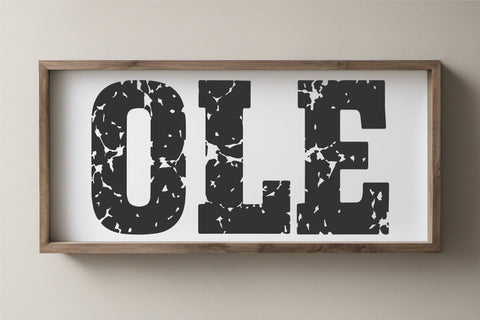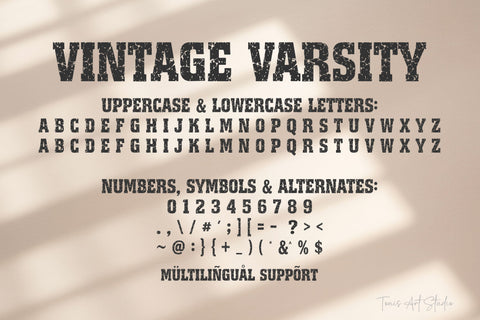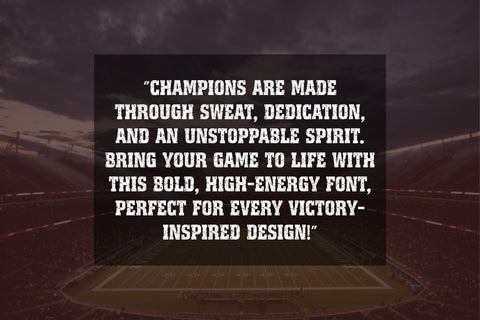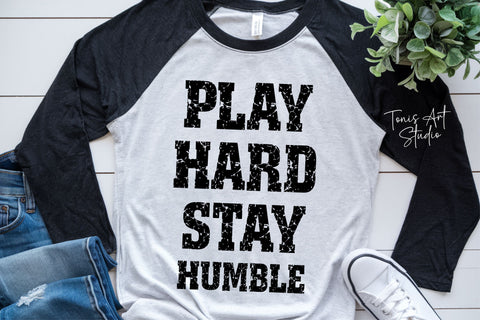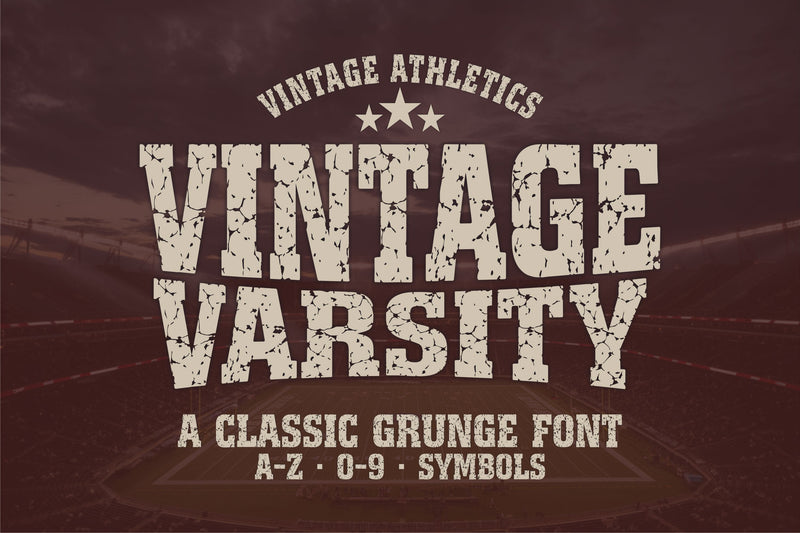
Vintage Varsity Distressed Font | Grunge College Athletic
Vintage Varsity is a bold, distressed athletic font inspired by classic college lettering and vintage sports typography. Designed with a rugged grunge texture and strong varsity structure, this font is perfect for sports branding, jerseys, t-shirts, posters, and high-energy motivational designs that need a powerful, authentic look.
Whether you’re creating designs for football, basketball, baseball, gym apparel, or collegiate projects, Vintage Varsity delivers a confident, worn-in aesthetic that stands out across both print and digital uses. Its bold letterforms remain highly readable while adding character and attitude to every design.
✔ Vintage Varsity – Distressed collegiate athletic font
✔ Uppercase & lowercase letters (A–Z)
✔ Numbers (0–9) and symbols
✔ Multilingual character support